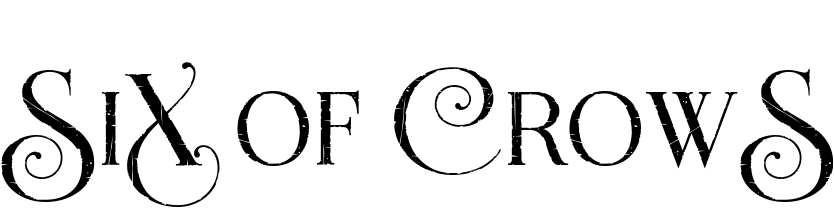
Six of Crows Font
BookSix of Crows is a young adult fantasy novel written by Leigh Bardugo. It is the first book in the "Six of Crows" duology and is set in the Grishaverse, a fantasy world created by Bardugo.
LHF Encore Distressed is the font style used for the book title on the cover. John Davis created the classy script family LHF Encore. The collection comes in Regular, Shadow, Distressed, HTR, and Inset variations, each with a corresponding flourish font to give them unique personalities.